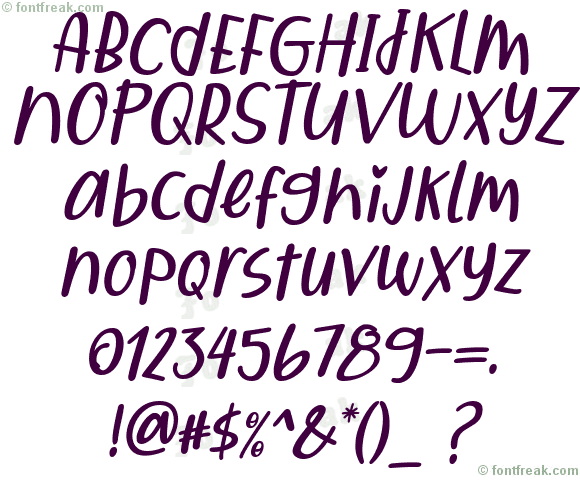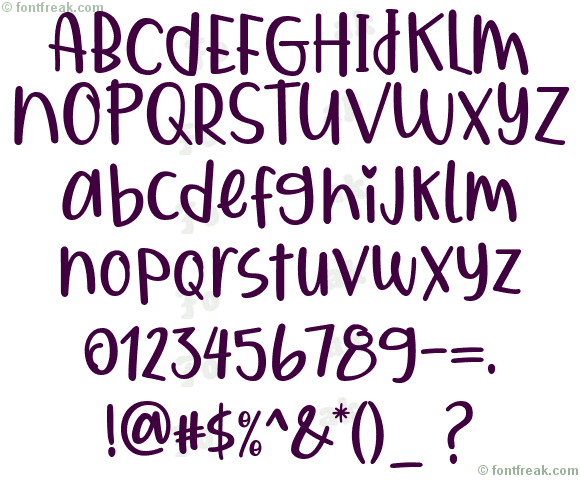
Qiyoshi
Qiyoshi Italic
Qiyoshi is a striking display font created by Situjuh Nazara, released in 2018 under a freeware license. This font falls into the category of decorative typefaces, making it an excellent choice for projects that aim to capture attention and convey a unique personality. Its italic style adds a dynamic flair, characterized by smooth, flowing lines that create a sense of movement and elegance.
Visually, Qiyoshi exhibits a moderate stroke weight with a soft contrast between thick and thin lines, enhancing its readability while maintaining artistic charm. The letterforms are well-spaced, contributing to a balanced appearance that avoids clutter, which is essential for effective communication in design. Decorative elements, such as the playful curves and distinctive tails on certain characters, give this font its signature look, making it ideal for creative applications.
This font is particularly well-suited for a variety of use cases. It can elevate wedding invitations, lending a romantic touch to the text. Its playful nature makes it a fantastic choice for children's book covers, where capturing the imagination is key. Additionally, Qiyoshi can enhance restaurant menus by adding a warm, inviting vibe, making dishes appear more appealing. Graphic designers will find it valuable for branding projects, where a unique font can help establish a memorable identity.
Target audiences for Qiyoshi include graphic designers seeking distinctive typefaces, small business owners looking to create standout marketing materials, and content creators aiming to add a touch of personality to their digital platforms. Overall, the Qiyoshi font free download offers a delightful option for anyone needing a visually captivating typeface that stands out in any design context. Its unique characteristics and versatility ensure it will serve as a valuable asset in various creative projects.